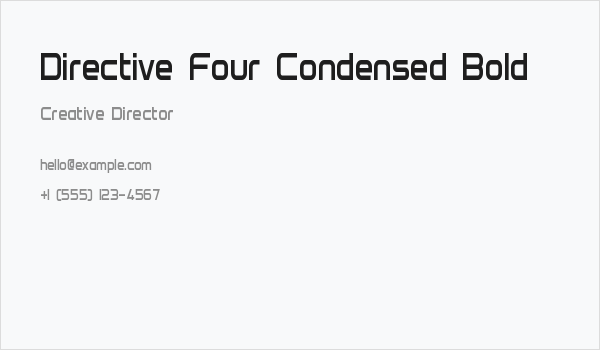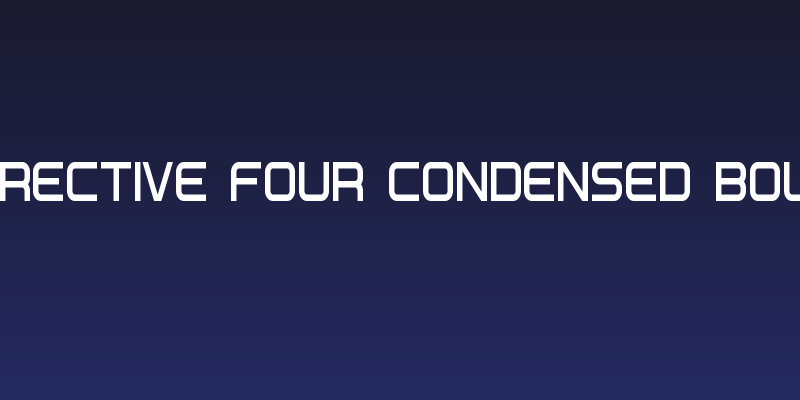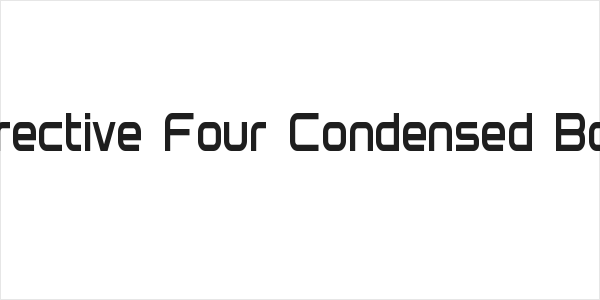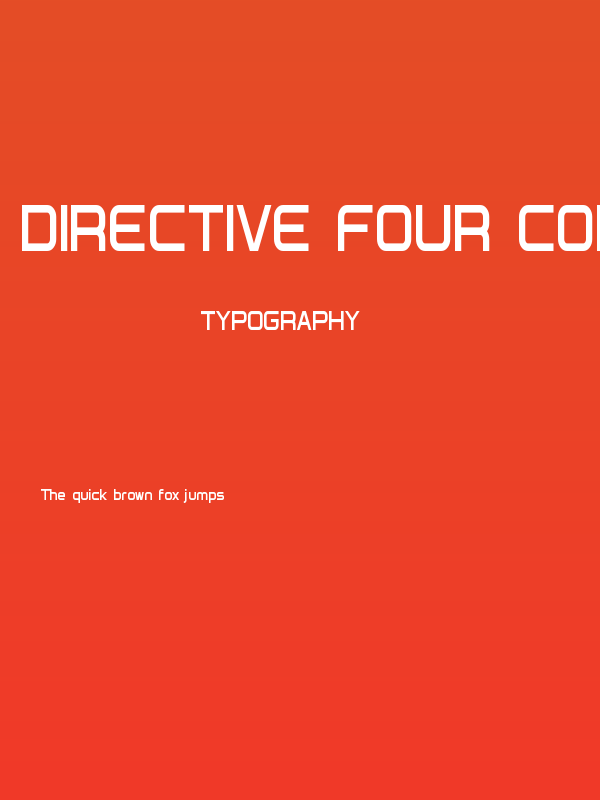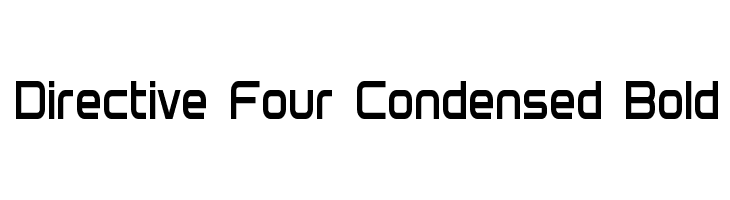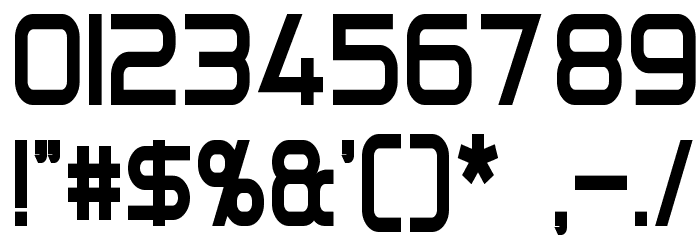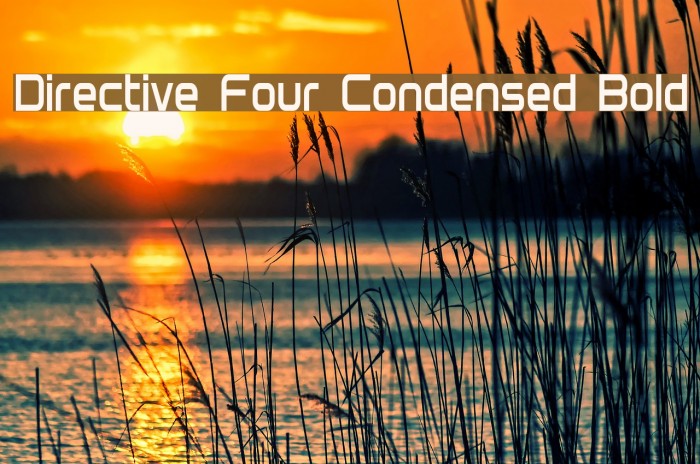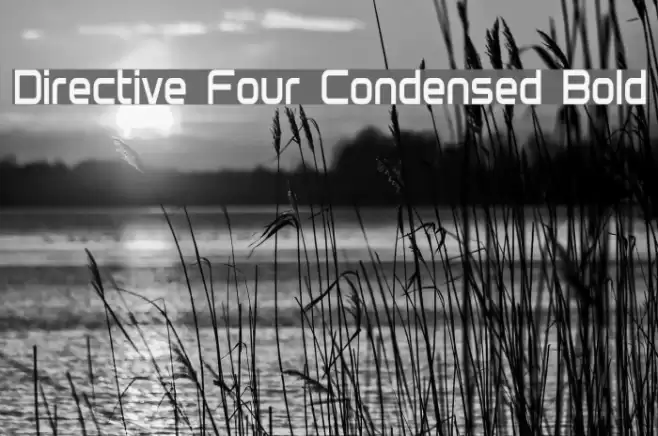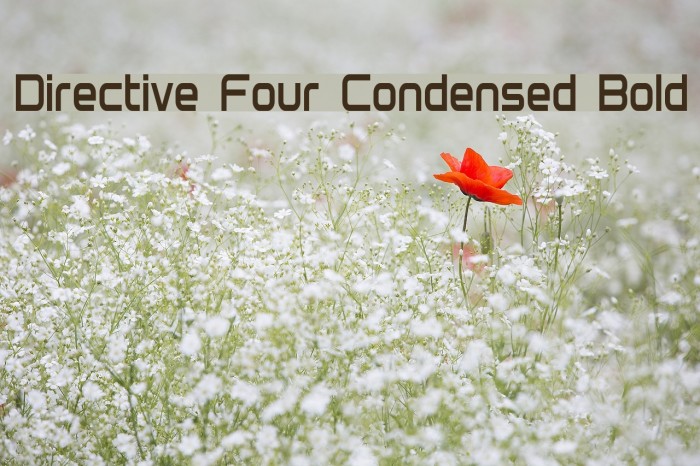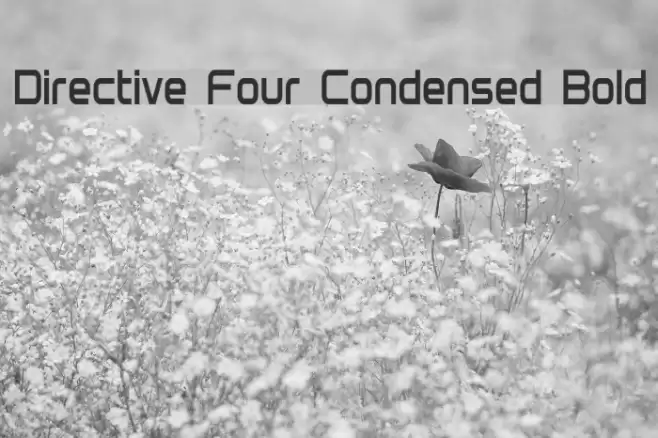
Directive Four Condensed Bold Font
| Cas d'utilisation | Headlines, Logos, Branding |
| Projets proposés | Ideal for branding, advertising, headlines, and digital interfaces where a strong and modern presence is desired. |